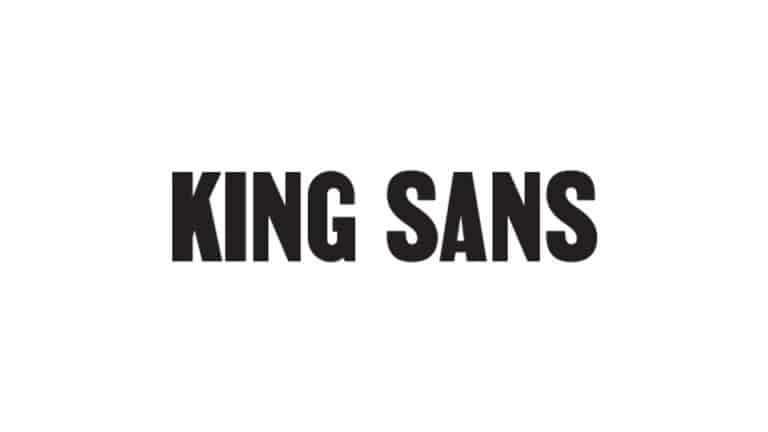
King Sans Serif Font
Meet King Sans Font is a modern typeface inspired by classic sans serif. This font will pair beautifully with the signature, serif, script, or handwriting style fonts.